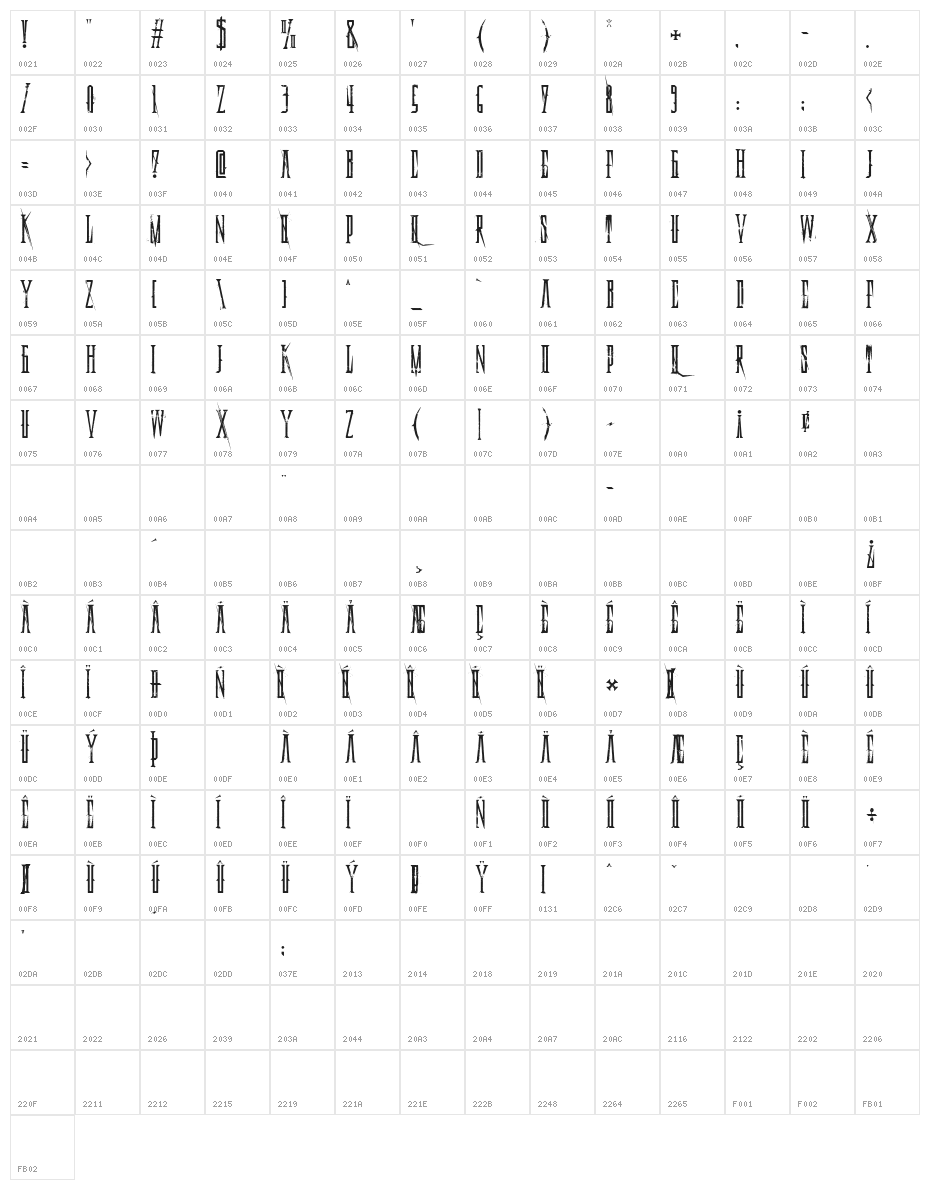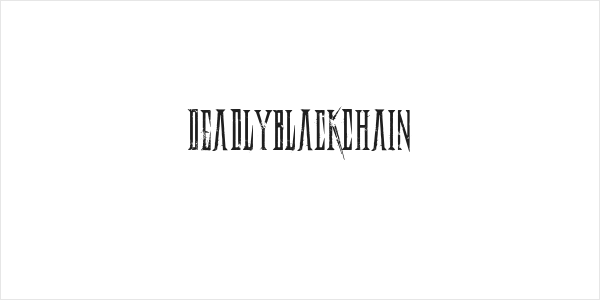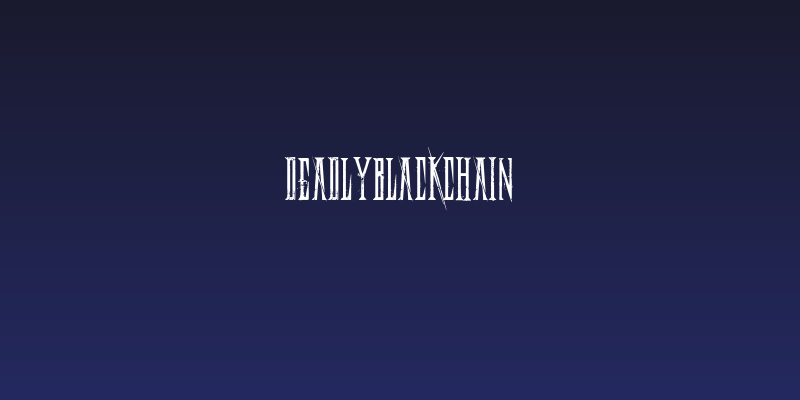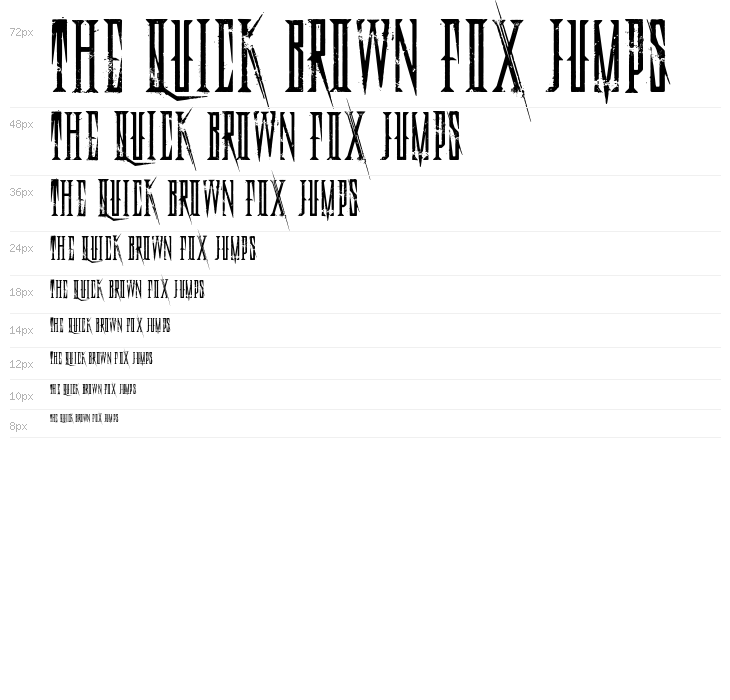
DeadlyBlackChain Font
DeadlyBlackChain Description
This font features a bold and distressed style, characterized by its sharp edges and uneven texture, giving it a rugged and edgy appearance. The uppercase and lowercase letters maintain a consistent height, creating a uniform look across the alphabet. The numbers and special characters follow the same distressed aesthetic, adding to the overall gritty feel. The font's design is reminiscent of a vintage or industrial theme, with a modern twist. Its unique appearance makes it suitable for projects that require a strong visual impact, such as posters, album covers, or branding for edgy products.
Overall StyleModern, Vintage
Proposed ProjectsIdeal for posters, album covers, branding for edgy products, or any project needing a strong visual impact.